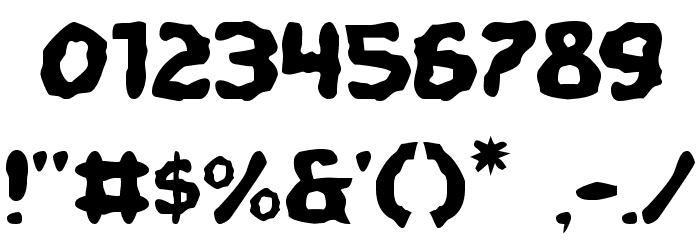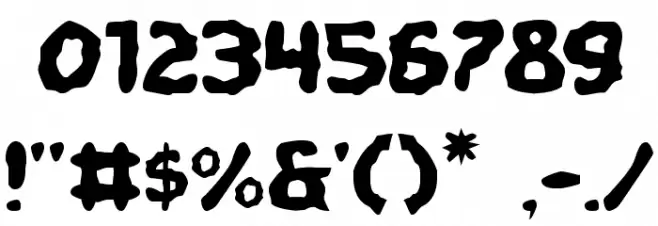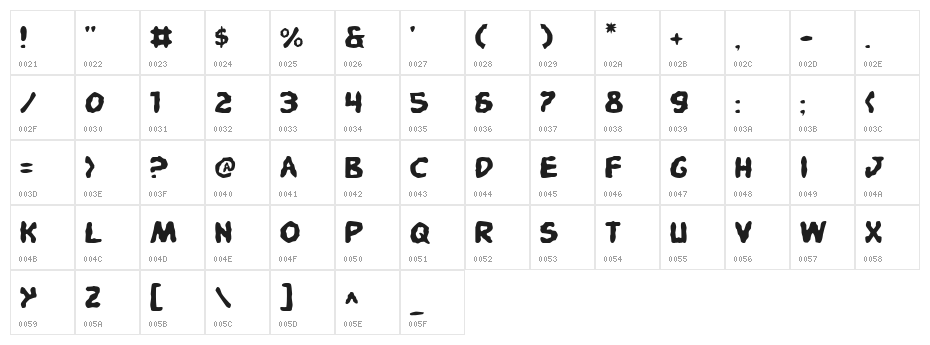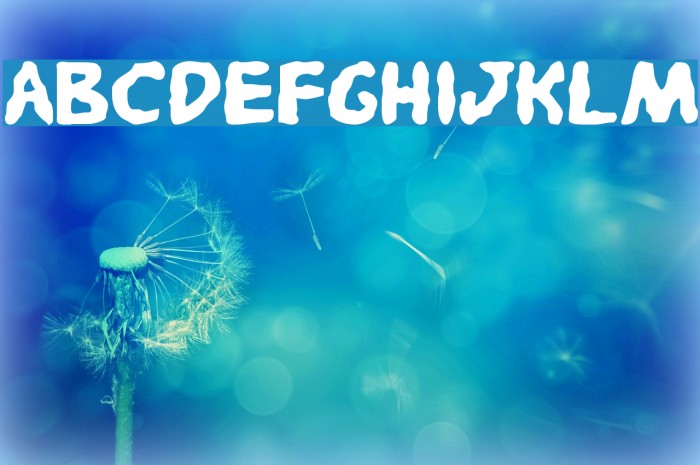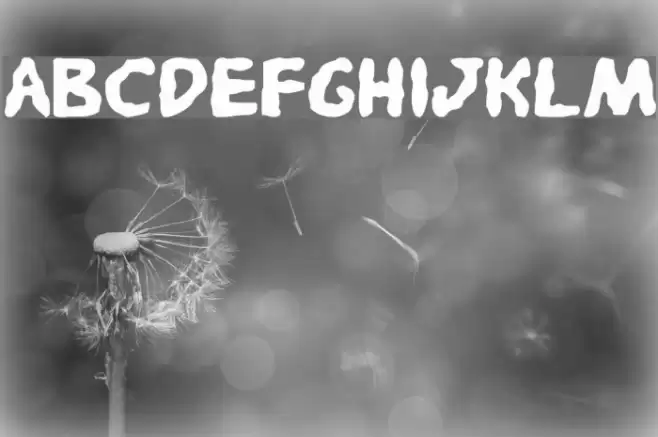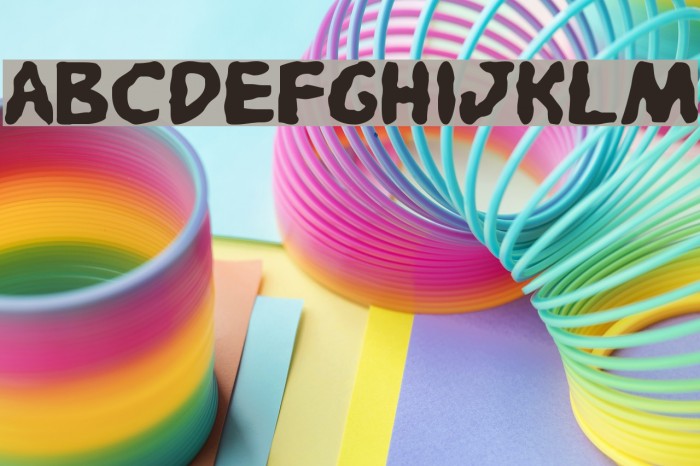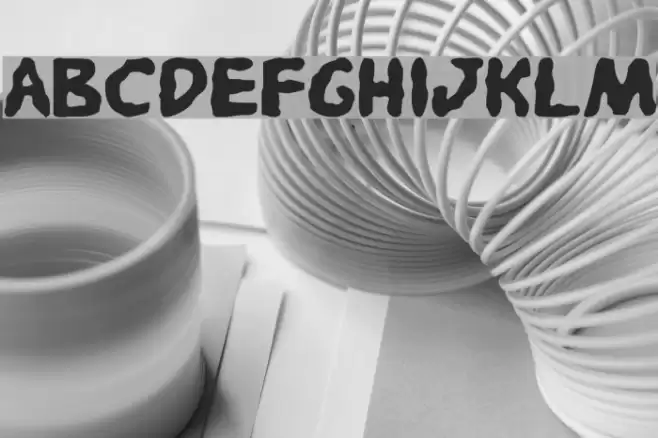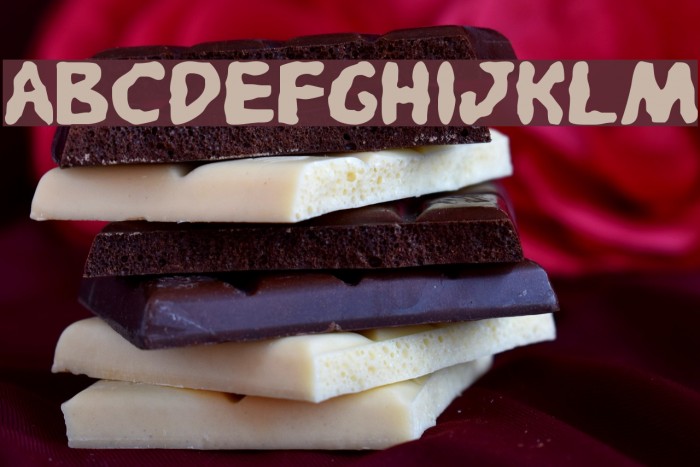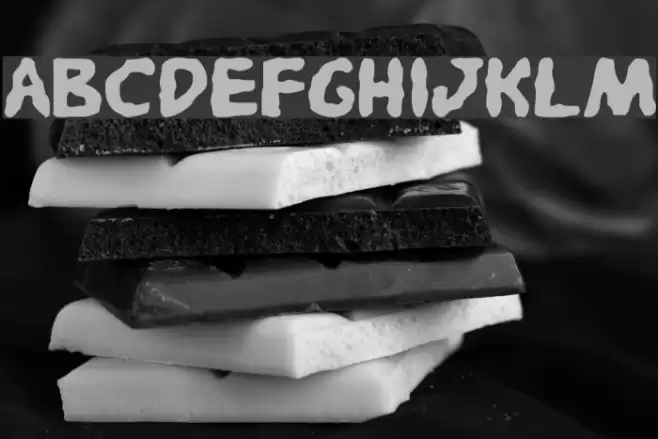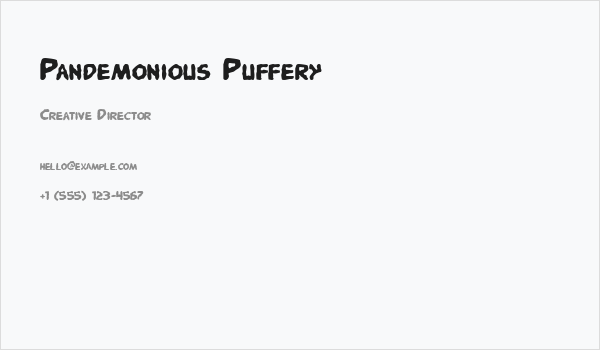
Pandemonious Puffery Font
Pandemonious Puffery Description
This font features a playful and bold design with a hand-drawn appearance. The characters are thick and rounded, giving them a bubbly and whimsical feel. The strokes are uneven, adding to the casual and informal style. The font maintains a consistent weight throughout, with each letter exhibiting a unique, organic shape. The overall look is reminiscent of graffiti or cartoon lettering, making it stand out with its distinctive personality. The numbers and special characters follow the same playful design, ensuring a cohesive appearance across all elements.
| Proposed Projects | Ideal for children's book covers, playful branding, comic strips, or any project requiring a fun and informal touch. |